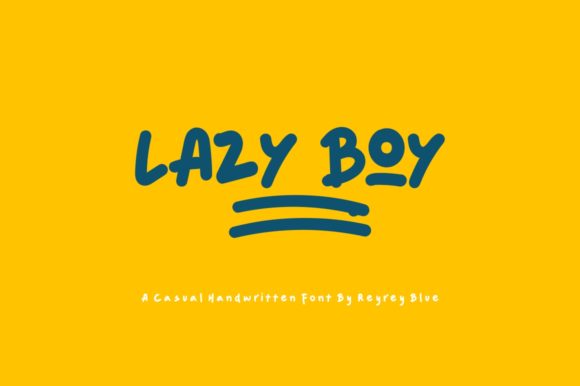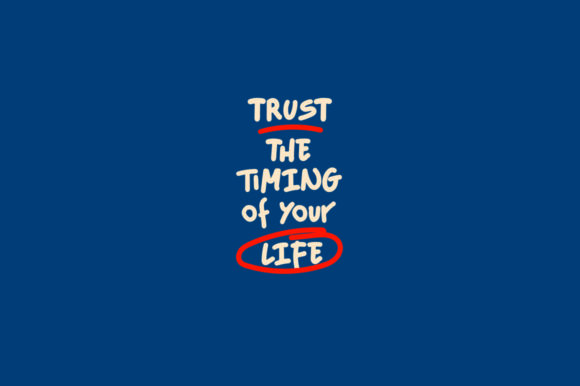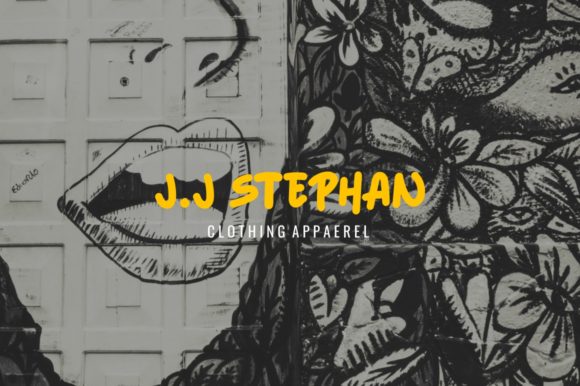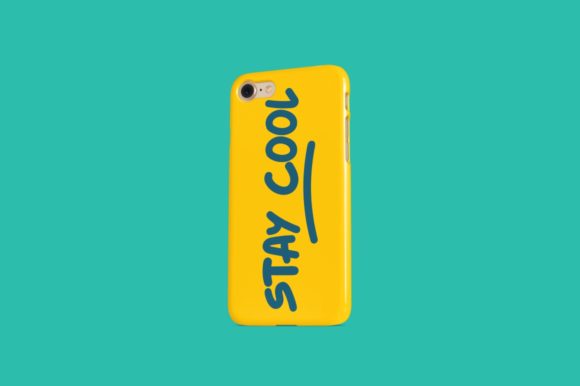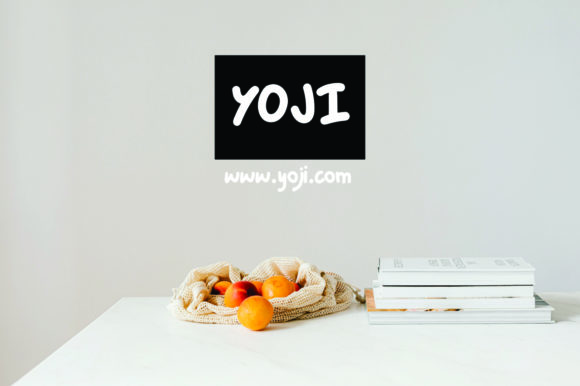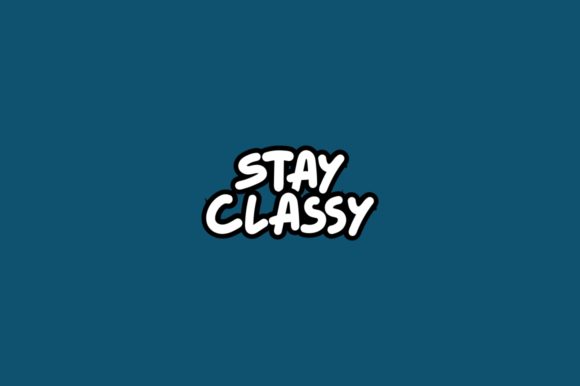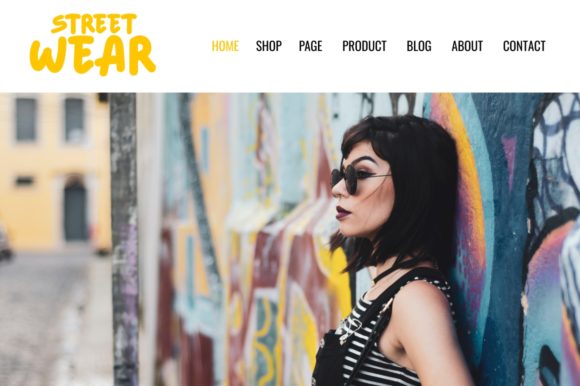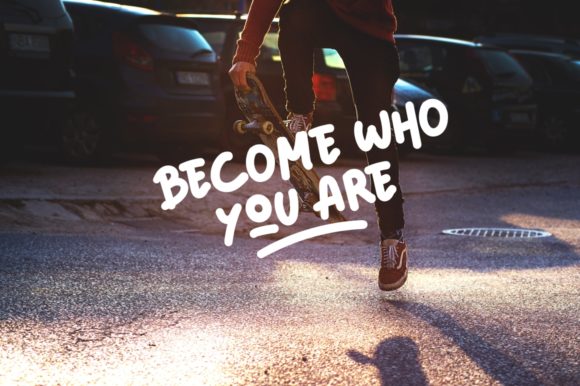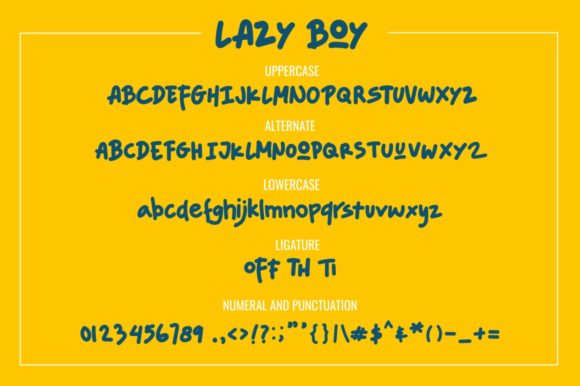
Lazy Boy Font
Lazy Boy feels bold and clean. This display font is perfect for any fun and quirky designs! It is ideal for designing merchandise, eye catching social media & marketing posts, and attention-grabbing product packaging & branding projects. It includes a full set of uppercase, lowercase, numerals, punctuation, symbols and multilingual support.